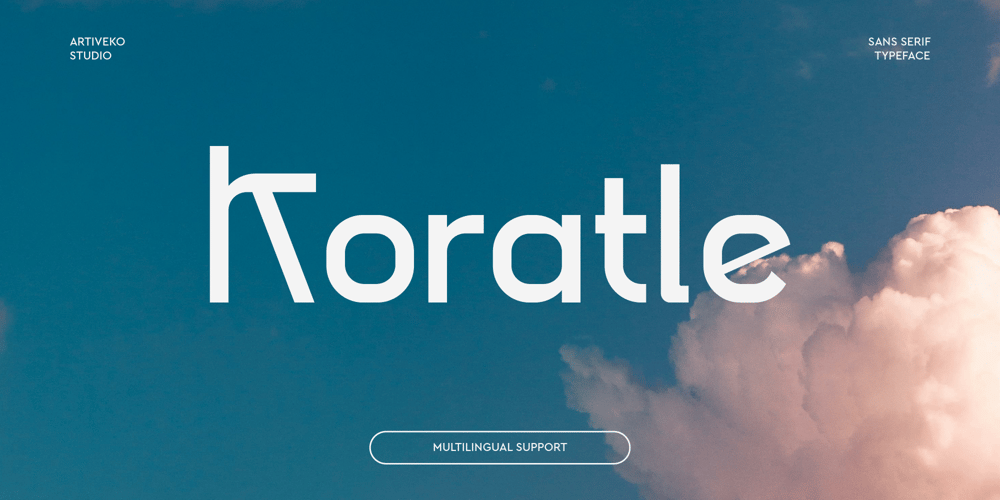
Koratle
Koratle font
Koratle Font Family was designed by Iwan Alwan and published by Artiveko. Koratle contains 2 styles and family package options. Koratle is a tech sans-serif font crafted by Iwan Alwan, renowned for its unique forms and versatility.This modern typeface offers distinctive variations between uppercase and lowercase characters, enhancing its visual appeal. Koratle supports multiple languages, making it perfect for global applications. Its sleek, innovative design is ideal for tech branding, user interfaces, and digital projects, delivering both style and functionality.